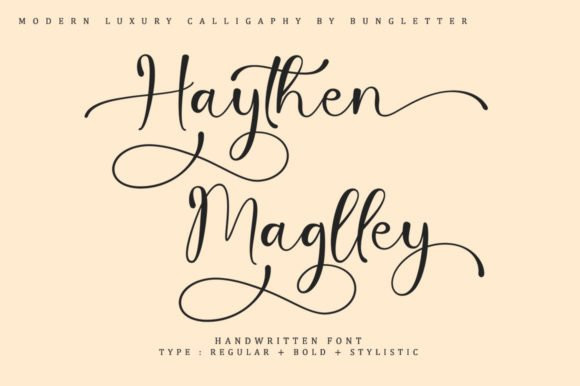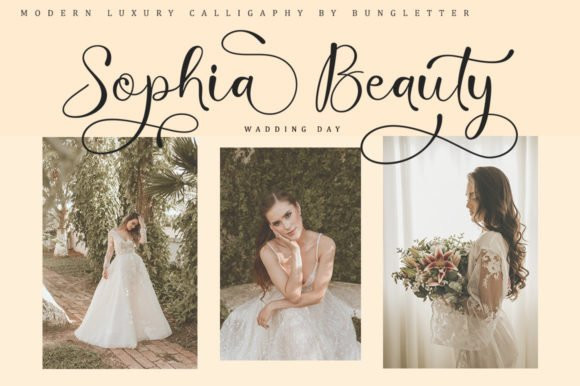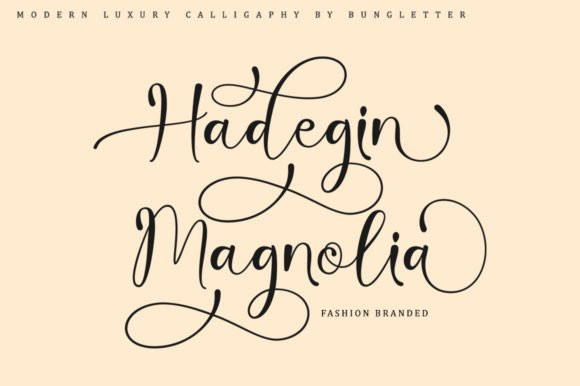
Haythen Maglley Font
Haythen Maglley is a beautiful, light handwritten font with a unique feel and a stunning impact. It will add a luxury spark to any design project that you wish to create! This font is PUA encoded which means you can access all of the amazing glyphs and ligatures with ease!